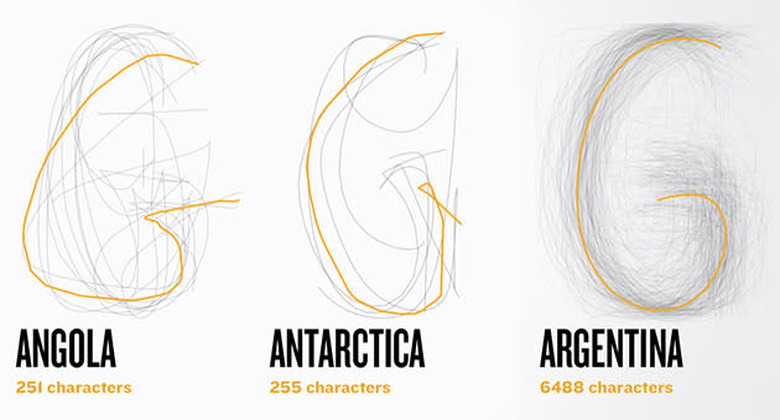
As time marches on and the world grows smaller, we're left with the understanding that we - you, me, and folks across the globe - are more alike than we realize. Except, you know, when it comes to handwriting. To commemorate selling billions of pens you've seen countless times in your life, Bic has set out to create what it calls the Universal Typeface: a series of characters created by basically averaging thousands of writing samples from people across the world.
You can check out the typeface in its current state right here, but be warned: Bic is taking submissions through August so what you see now isn't necessarily the final product. If we're being honest, the Universal Typeface doesn't look entire like one of the handwritten examples you'd find one of those of hit-or-miss-but-mostly-miss free font sites. What's perhaps more interesting is seeing how the "average" look of a letter differs from country to country; Japan's capital "G" has a distinct, free-floating tail, while India's is one single line with an aquiline hook. And Egypt's "G"? it barely has that tell-tale tail at all. You can drill down to compare between genders and occupations too, but (as Smithsonian Magazine points out) the differences are far less satisfying. Itching to add your own chicken scratch to the mix? Feel free to contribute, but you'd better not mess with Antarctica's brilliant E unless you actually live there.Bic boils down the world's handwriting into one average typeface